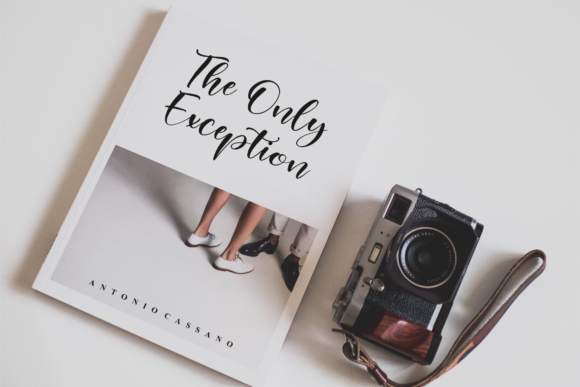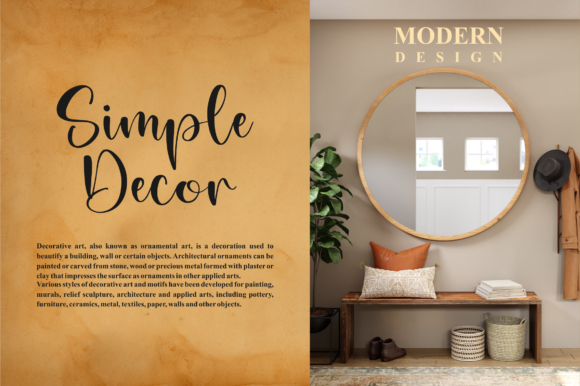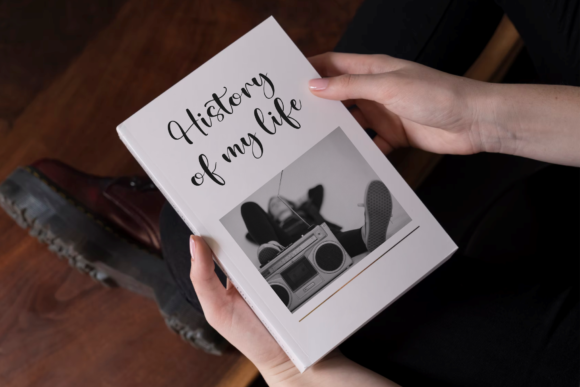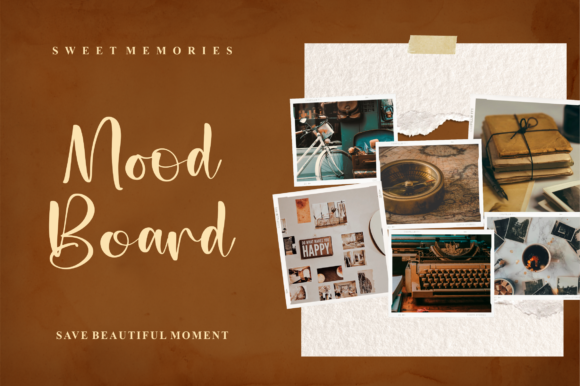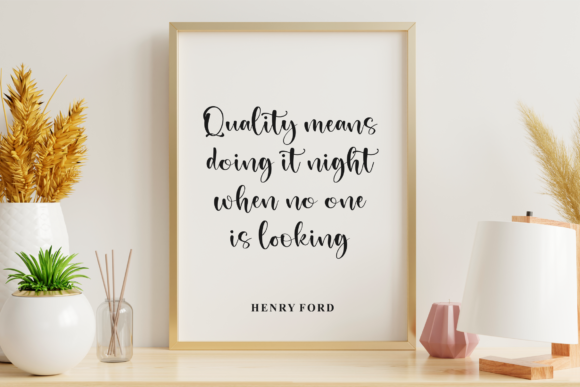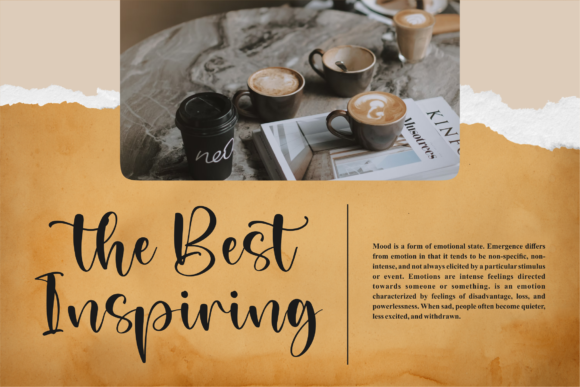
Introducing Handly Rottery Font: Elevate Your Designs with Elegant Script
Are you on the hunt for a font that adds a touch of elegance and sophistication to your designs? Look no further than Handly Rottery Font, a stunning script font perfect for a wide range of projects. From logos and branding to homeware designs, product packaging, and more, Handly Rottery is the ideal choice for designers and crafters seeking a beautiful script taste.
What Makes Handly Rottery Font Special?
Handly Rottery Font is a beautiful script font that boasts a unique and stylish aesthetic. Its elegant curves and flowing lines make it perfect for adding a touch of sophistication to any design. Whether you’re working on a logo, branding project, or product packaging, Handly Rottery Font is sure to impress.
One of the standout features of Handly Rottery Font is its versatility. It’s suitable for a wide range of projects, including:
- Logos and branding projects
- Homeware designs
- Product packaging
- Mugs and water bottles
- Quotes and posters
- Shopping bags and t-shirts
- Book covers and more
Why Choose Handly Rottery Font?
There are many script fonts on the market, but Handly Rottery Font stands out for its unique combination of style, versatility, and ease of use. Here are just a few reasons why designers and crafters love Handly Rottery Font:
- Unique and stylish aesthetic: Handly Rottery Font boasts a distinctive and elegant style that’s sure to elevate your designs.
- Versatility: This font is suitable for a wide range of projects, from logos and branding to homeware designs and product packaging.
Tips for Using Handly Rottery Font
To get the most out of Handly Rottery Font, here are a few tips:
- Use it as a headline font: Handly Rottery Font is perfect for headlines and titles, where its elegant curves and flowing lines can really shine.
- Pair it with a sans-serif font: For body text, pair Handly Rottery Font with a clean sans-serif font to create a striking contrast.
Handly Rottery Font is a beautiful script font that’s perfect for designers and crafters seeking to add a touch of elegance and sophistication to their work. With its unique and stylish aesthetic, versatility, and ease of use, it’s an ideal choice for a wide range of projects. Whether you’re working on a logo, branding project, or product packaging, Handly Rottery Font is sure to impress.